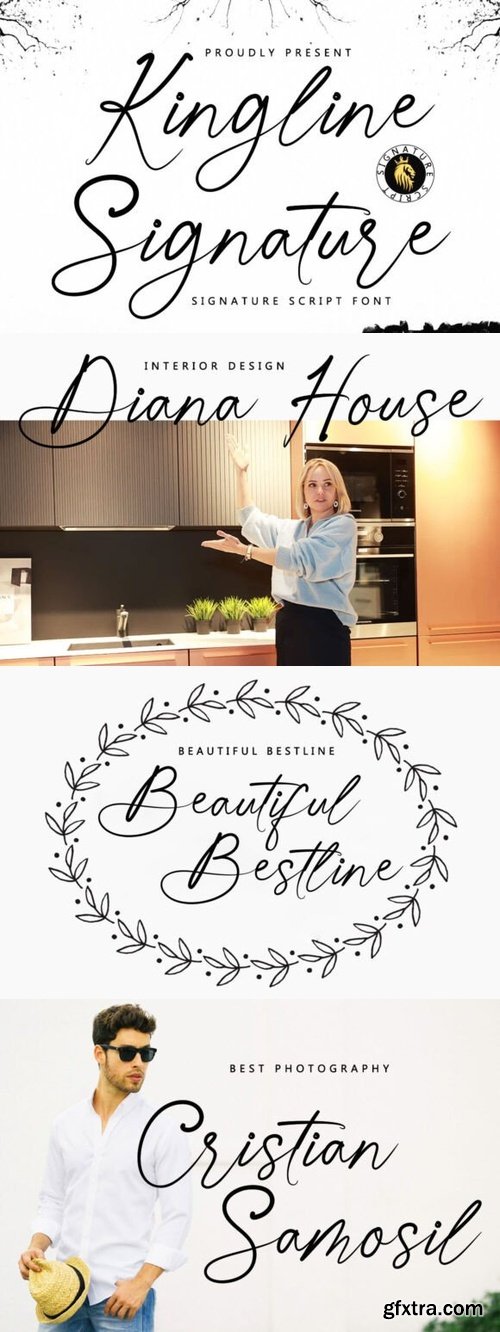
Kingline Signature Font
- Kingline Signature is a refined script font crafted for elegance and personality. Perfect for logos, personal branding, and signature-style designs, it combines grace with a handcrafted feel.